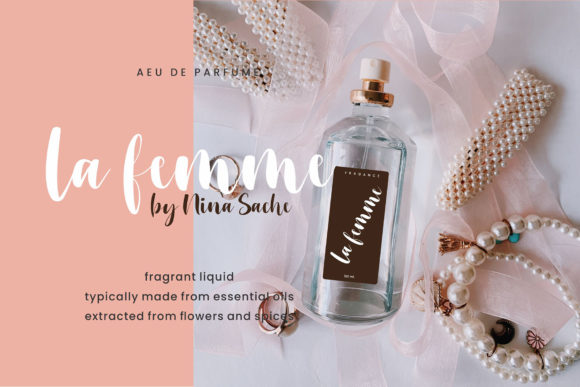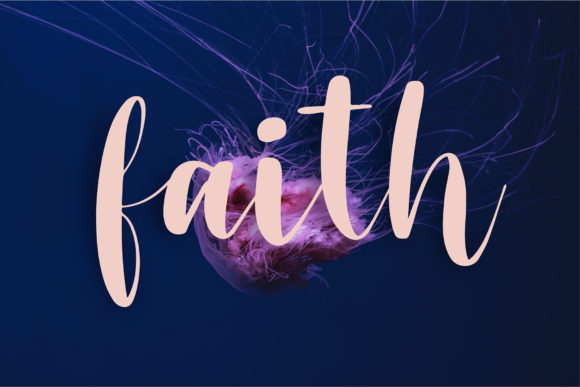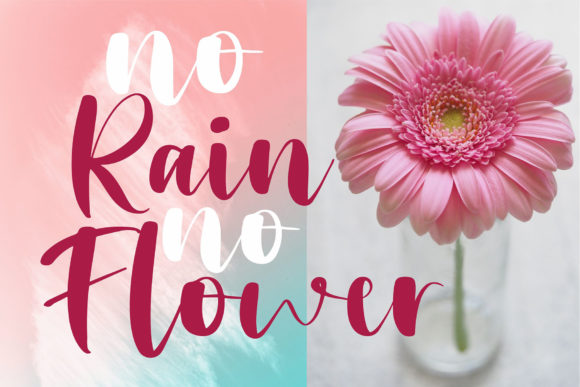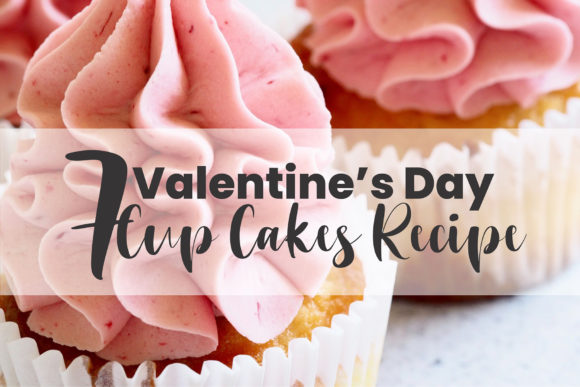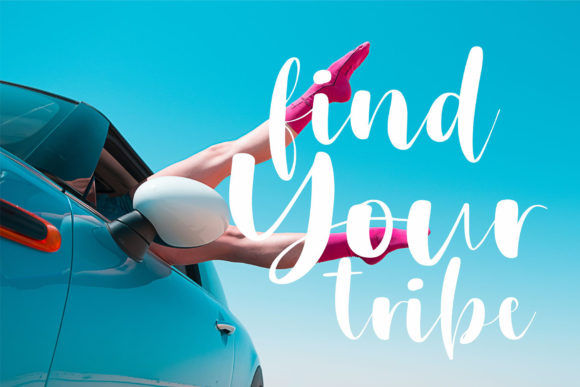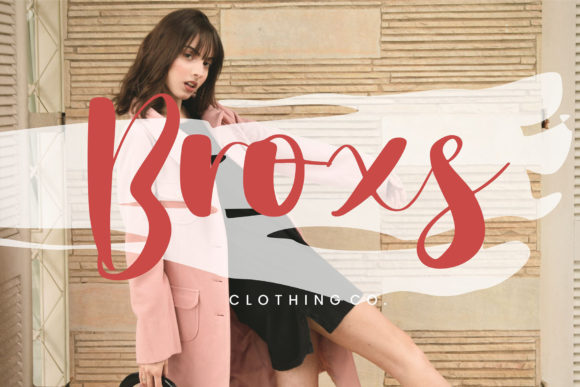
Introducing Desila Font: Elevate Your Designs with a Touch of Vintage Elegance
In the world of typography, fonts play a crucial role in conveying the tone and personality of a design. For designers and crafters looking to add a touch of sophistication and elegance to their projects, Desila Font is an excellent choice. This beautiful handwritten font boasts delicate script elements that infuse a vintage feel into modern designs, making it perfect for a wide range of applications.
What Makes Desila Font Special?
Desila Font stands out from the crowd with its unique blend of modernity and vintage charm. Its handwritten nature gives it a personal and intimate feel, while the delicate script elements add a level of sophistication that’s hard to achieve with standard fonts. Whether you’re working on branding projects, logos, wedding designs, or social media posts, Desila Font is sure to make your designs stand out.
One of the key benefits of Desila Font is its versatility. It’s a font that can be used across various mediums and projects, including:
- Branding projects: Create a lasting impression with a font that exudes elegance and sophistication.
- Logos: Make your logo memorable with a unique and stylish font.
- Wedding designs: Add a touch of romance and whimsy to your wedding stationery and decor.
- Social media posts: Elevate your social media game with eye-catching and engaging posts.
- Advertisements: Grab attention with a font that’s both stylish and effective.
- Product packaging: Make your products stand out on store shelves with beautiful packaging.
- T-shirt design: Create stylish and memorable apparel with Desila Font.
- Product designs: Add a touch of elegance to your product designs and make them more appealing.
- Labels: Create stylish and informative labels that complement your products.
- Photography: Use Desila Font to create beautiful watermarks and add a touch of sophistication to your photos.
- Invitations: Make your invitations special with a font that’s both elegant and whimsical.
- Stationery: Elevate your stationery with a font that’s both stylish and professional.
Why Choose Desila Font?
With so many fonts available, why choose Desila Font? Here are a few compelling reasons:
- Unique and stylish: Desila Font is a one-of-a-kind font that will make your designs stand out.
- Vintage charm: Add a touch of nostalgia and elegance to your designs with Desila Font’s delicate script elements.
- Easy to read: Despite its ornate nature, Desila Font is surprisingly easy to read, making it perfect for body text and headlines.
- Highly versatile: Use Desila Font across various mediums and projects, from digital designs to print materials.
Tips for Using Desila Font
To get the most out of Desila Font, here are a few tips to keep in mind:
- Pair it with neutral colors: Let Desila Font be the star of the show by pairing it with neutral colors that complement its elegance.
- Experiment with sizes: Play around with different font sizes to create visual interest and hierarchy in your designs.
- Use it sparingly: While Desila Font is beautiful, it’s best used sparingly to avoid overwhelming the design.
Desila Font is a beautiful and versatile font that’s perfect for designers and crafters looking to add a touch of elegance and sophistication to their projects. With its unique blend of modernity and vintage charm, Desila Font is sure to make your designs stand out. Whether you’re working on branding projects, logos, wedding designs, or social media posts, Desila Font is an excellent choice. So why wait? Give Desila Font a try today and elevate your designs to the next level!